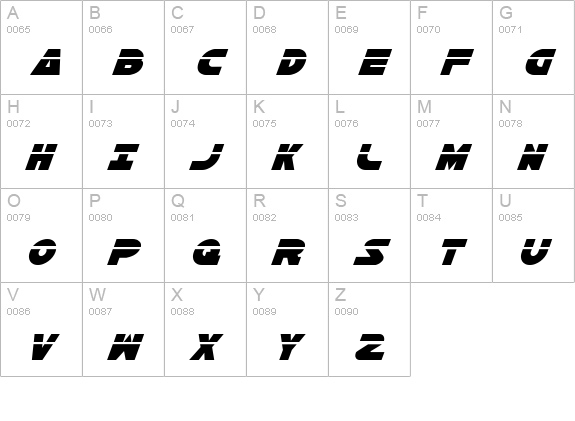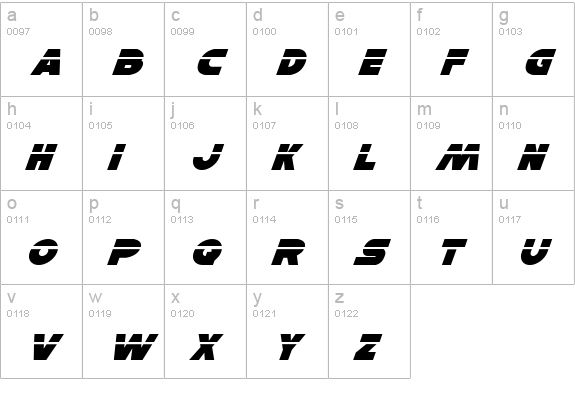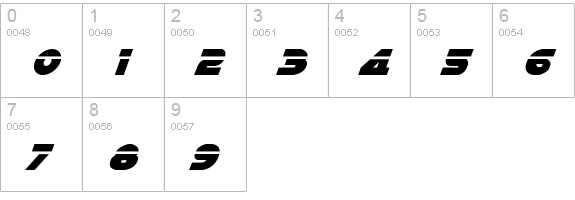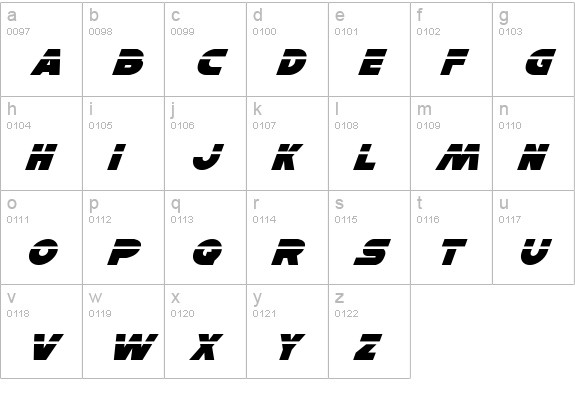
Han Solo Laser Italic Font Details
Han Solo Laser Italic is a distinctive, italic variant in the Han typeface family \xE2\x80\x94 well suited to design and typography projects.
Introducing the Han Solo Laser Italic font, a captivating typeface that channels the spirit of the legendary Han Solo himself. This font is the perfect fusion of sleek sophistication and daring adventure, embodying the essence of the iconic character's wit, charm, and swashbuckling aura. With its laser-sharp edges and italicized stance, the Han Solo Laser Italic font exudes a sense of boldness and confidence, making it ideal for projects that demand a touch of rebellion and audacity. Whether you're designing posters for a sci-fi convention, creating stylish merchandise for Star Wars enthusiasts, or crafting eye-catching social media graphics, this font is sure to captivate and engage your audience. One of the most remarkable features of this font is that it is freely available to download at FontsMarket.com. Yes, you read that right! Get your hands on this incredible typeface without having to spend a single credit from your intergalactic currency. FontsMarket.com offers an extensive collection of fonts for all your creative needs, and the Han Solo Laser Italic font is just one of the many gems waiting to be discovered. So, why settle for ordinary when you can infuse your designs with the rebel spirit of Han Solo himself? With the Han Solo Laser Italic font, your projects will soar to new heights, capturing attention and leaving a lasting impression. Embrace your inner Star Wars fan and let this font transport you to a galaxy far, far away. May the force be with you as you embark on your design journey with this remarkable and freely accessible font.